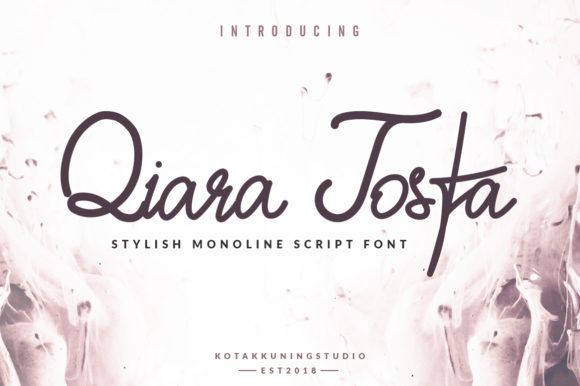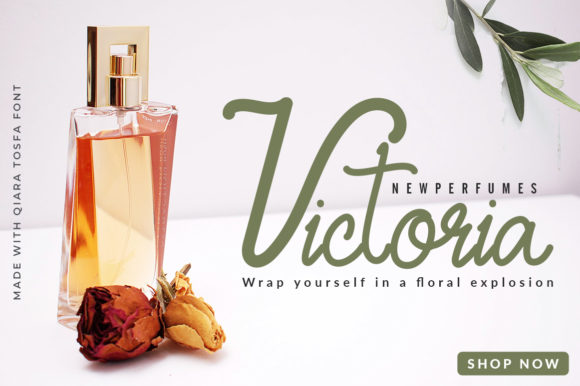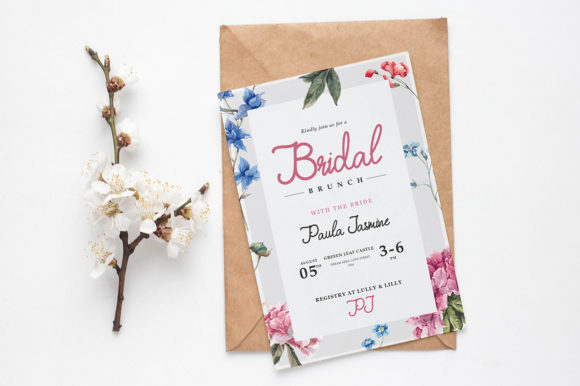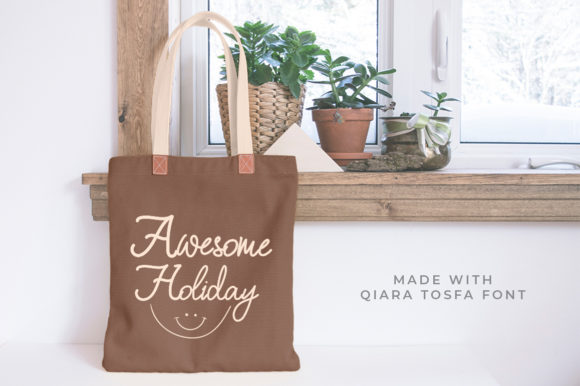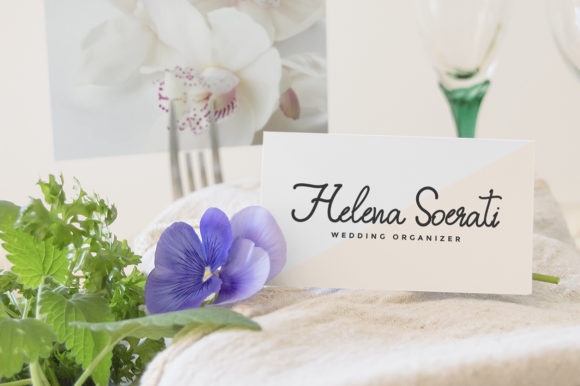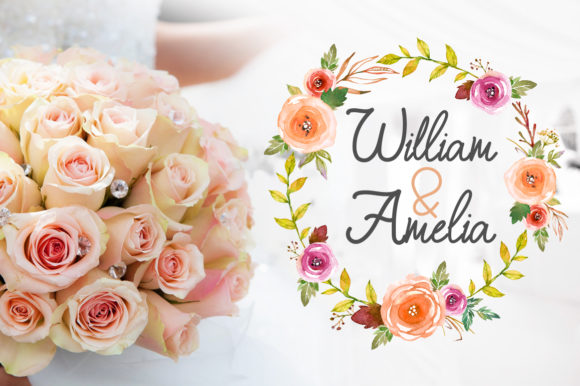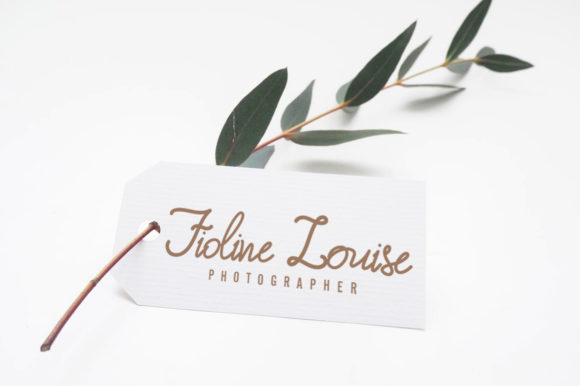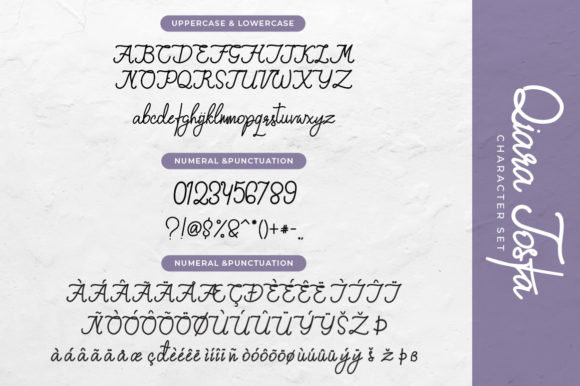
Qiara Tosfa Font
About Qiara Tosfa Font
The Qiara Tosfa is a beautiful calligraphy font. It has a natural handwritten style which will add a modern touch to your designs.
It’s perfect for photography, watermarks, social media posts, advertisements, invitations, and every other design that needs a handwritten feel.